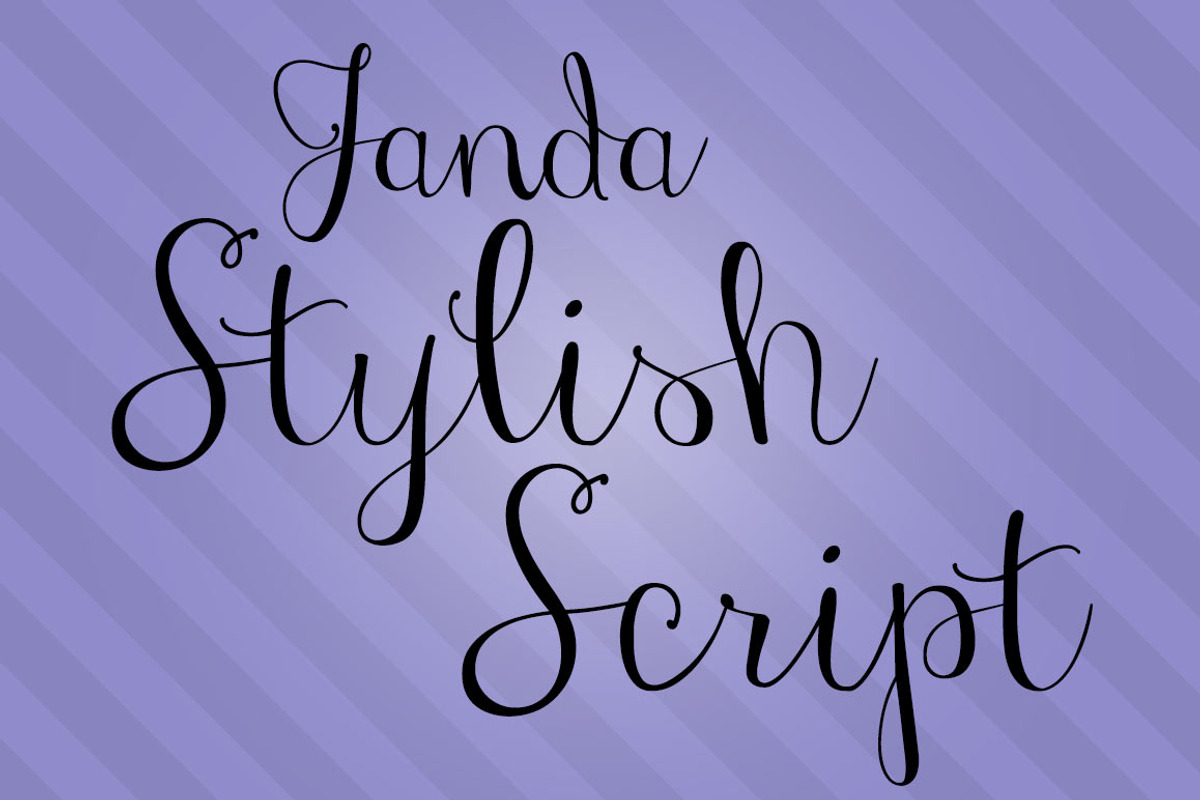
Janda Stylish Script
Janda Stylish Script by Kimberly Geswein Fonts is a font selected for branding, posters, packaging, typography.
Why Janda Stylish Script is worth a look
Janda Stylish Script by Kimberly Geswein Fonts fits naturally into Branding, posters, packaging, typography.